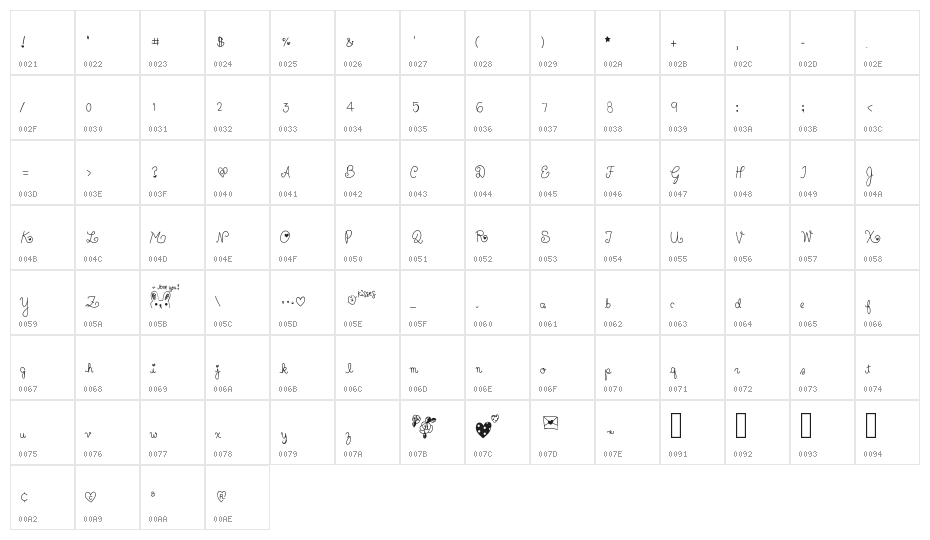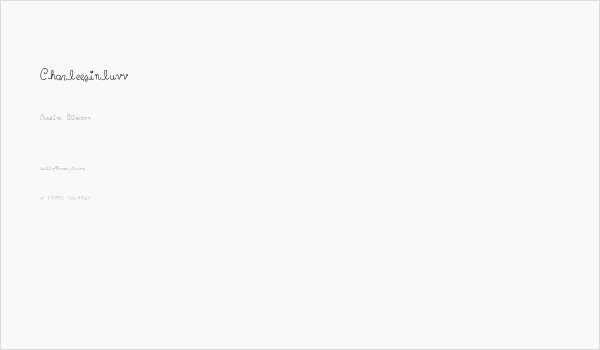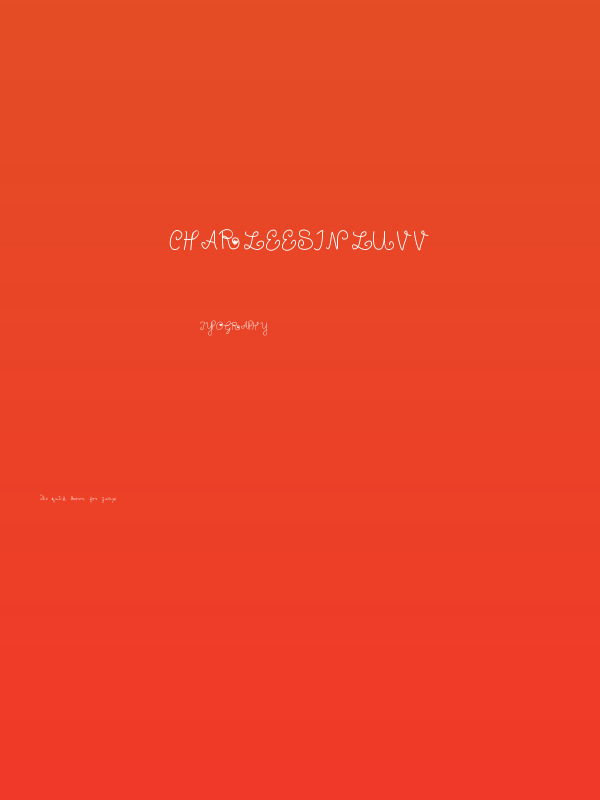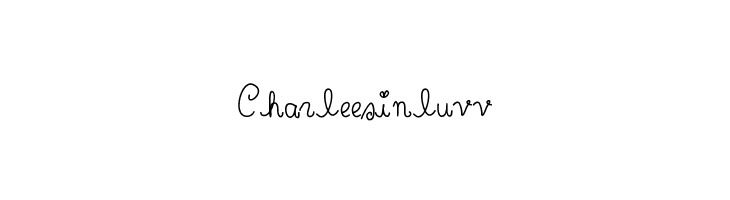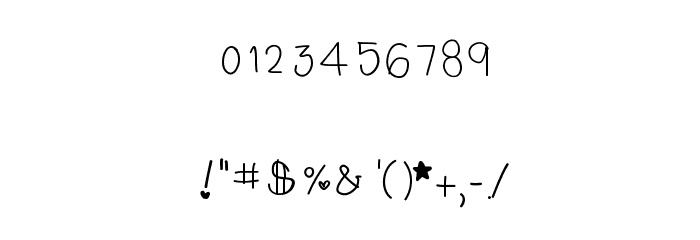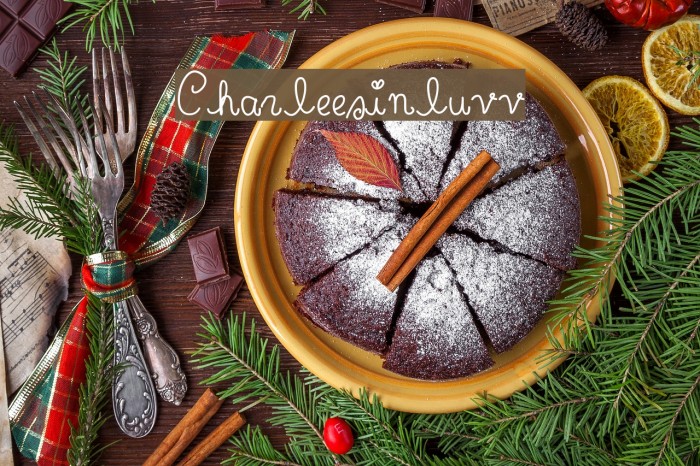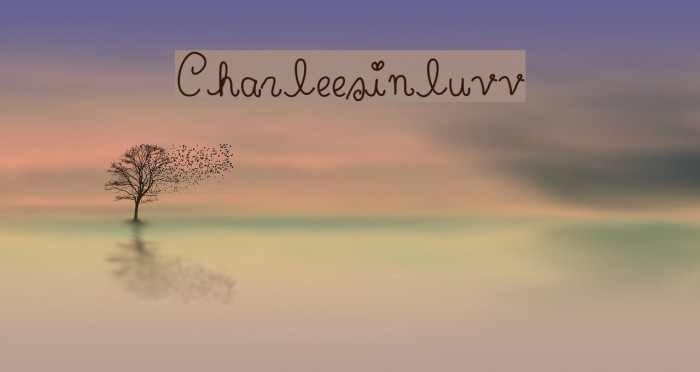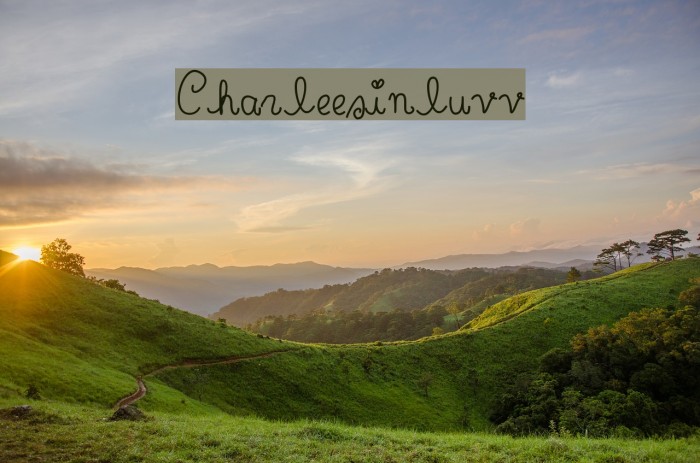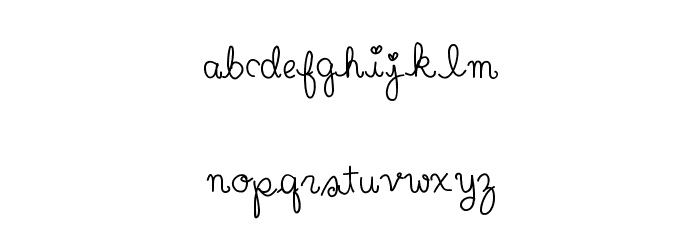
Charleesinluvv Font
Charleesinluvv Description
This font features a whimsical and playful design with a handwritten style. The characters are adorned with subtle curls and loops, giving it a charming and decorative appearance. The uppercase letters are slightly more elaborate, with some incorporating heart motifs, while the lowercase letters maintain a consistent, flowing script. The numerals and special characters complement the overall style with their simple yet elegant forms. This font exudes a sense of fun and creativity, making it ideal for projects that require a personal touch.
| Proposed Projects | Ideal for greeting cards, invitations, personal branding, and creative projects that require a playful and personal touch. |